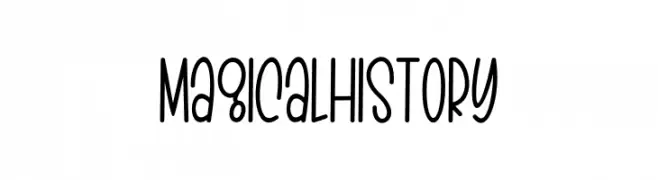
A playful, hand-drawn font with tall, narrow letters and a whimsical style.
A whimsical, playful font with tall, narrow letters and exaggerated curves.